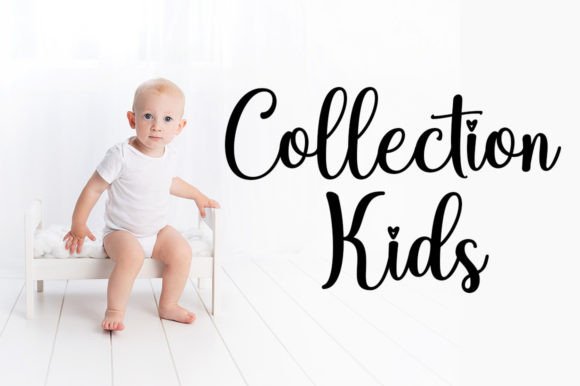
Bestie Font
Bestie is a new, fresh and cute calligraphy font with a heart that can be connected. Great for greeting cards, branding materials, business cards, quotes, posters, and more!